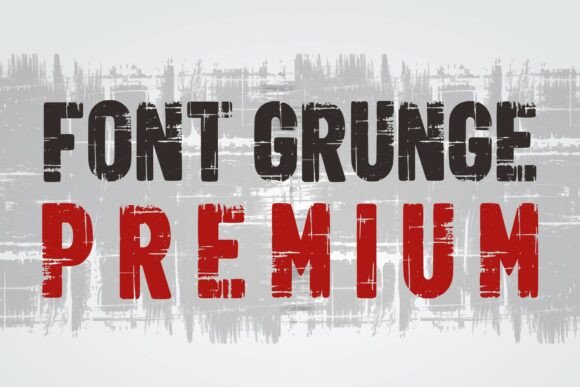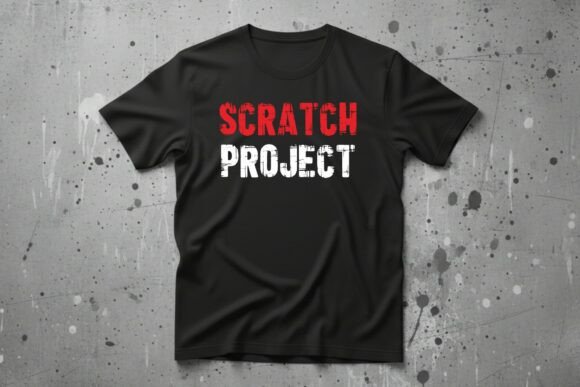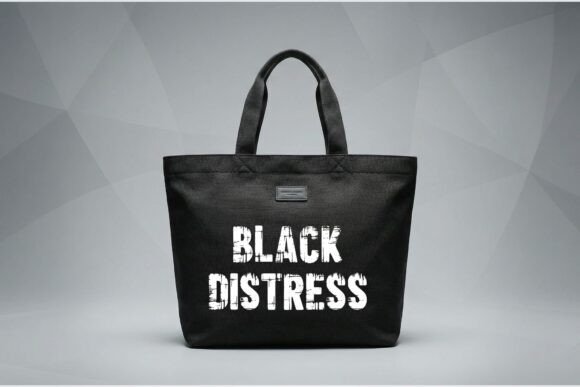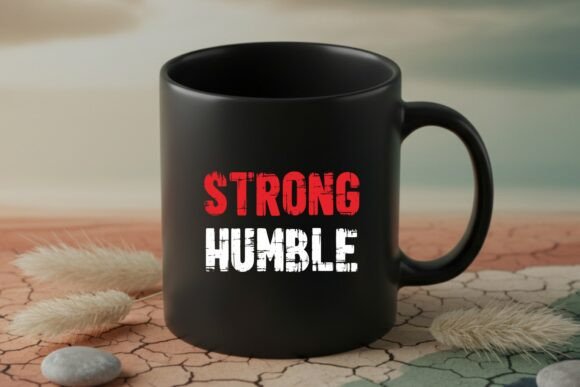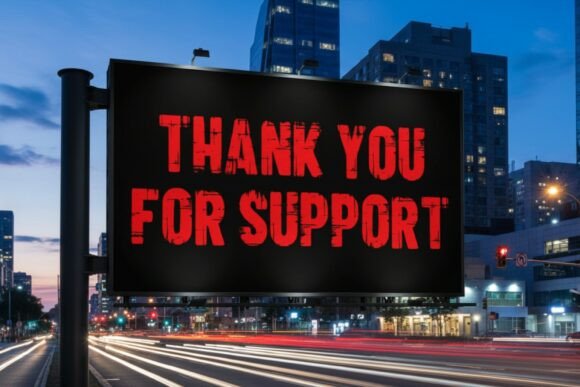
Unleash the Power of Distressed Typography: Introducing Distressed Creative Font
Are you tired of using the same old clean and sleek fonts for your designs? Do you want to add a touch of grit and urban texture to your typography? Look no further than the Distressed Creative font, a bold and rugged stencil-style display font that’s perfect for designers and crafters looking to add some edge to their work.
The Ultimate Expression of Grit and Urban Texture
Distressed Creative is a heavily textured, grunge-effect font that’s designed to give your headlines a weathered, industrial look. With its stamped-on aesthetic, this font screams personality and is sure to grab attention. Whether you’re working on a vintage apparel brand, a rock music flyer, or an urban-style poster, Distressed Creative is the perfect choice for adding a layer of history and toughness to your design.
Key Features of Distressed Creative Font
• Heavily textured, grunge effect: Gives your typography a raw, weathered look that’s perfect for urban and industrial designs.
• Stencil-style display font: Features a bold, rugged aesthetic that’s ideal for high-impact titles and headlines.
• Weathered, “stamped-on” aesthetic: Adds a layer of history and toughness to your design, giving it a unique and rebellious edge.
Distressed Creative font is perfect for designers and crafters who want to break away from the “perfect” digital look and add some raw, emotional power to their work. Whether you’re creating vintage apparel, rock music flyers, urban-style posters, or limited-edition merchandise, this font is sure to give your design a unique and eye-catching edge.
Pairing Distressed Creative with Other Design Elements
One of the best things about Distressed Creative font is how well it pairs with other design elements. When combined with bold photography and distressed textures, this font creates a cohesive, “street-style” look that’s perfect for urban and industrial designs. Here are some tips for pairing Distressed Creative with other design elements:
• Bold photography: Pair Distressed Creative with bold, high-contrast photography to create a striking and attention-grabbing design.
• Distressed textures: Combine Distressed Creative with distressed textures, such as worn leather or rough concrete, to add depth and tactility to your design.
• Earth tones: Pair Distressed Creative with earthy tones, such as brown, beige, and gray, to create a warm and organic look.
Tips for Using Distressed Creative Font
Here are some tips for getting the most out of Distressed Creative font:
• Use it for high-impact titles: Distressed Creative font is perfect for high-impact titles and headlines that need to grab attention.
• Limit your use: Because of its bold and rugged aesthetic, it’s best to limit your use of Distressed Creative font to one or two headlines per design.
• Experiment with colors: Try experimenting with different colors and textures to find the perfect combination for your design.
Distressed Creative font is a powerful tool for designers and crafters looking to add some grit and urban texture to their typography. With its heavily textured, grunge-effect aesthetic and weathered, “stamped-on” look, this font is perfect for vintage apparel brands, rock music flyers, urban-style posters, and limited-edition merchandise. By incorporating Distressed Creative into your design, you’ll be able to add a layer of history and toughness that clean fonts just can’t replicate.